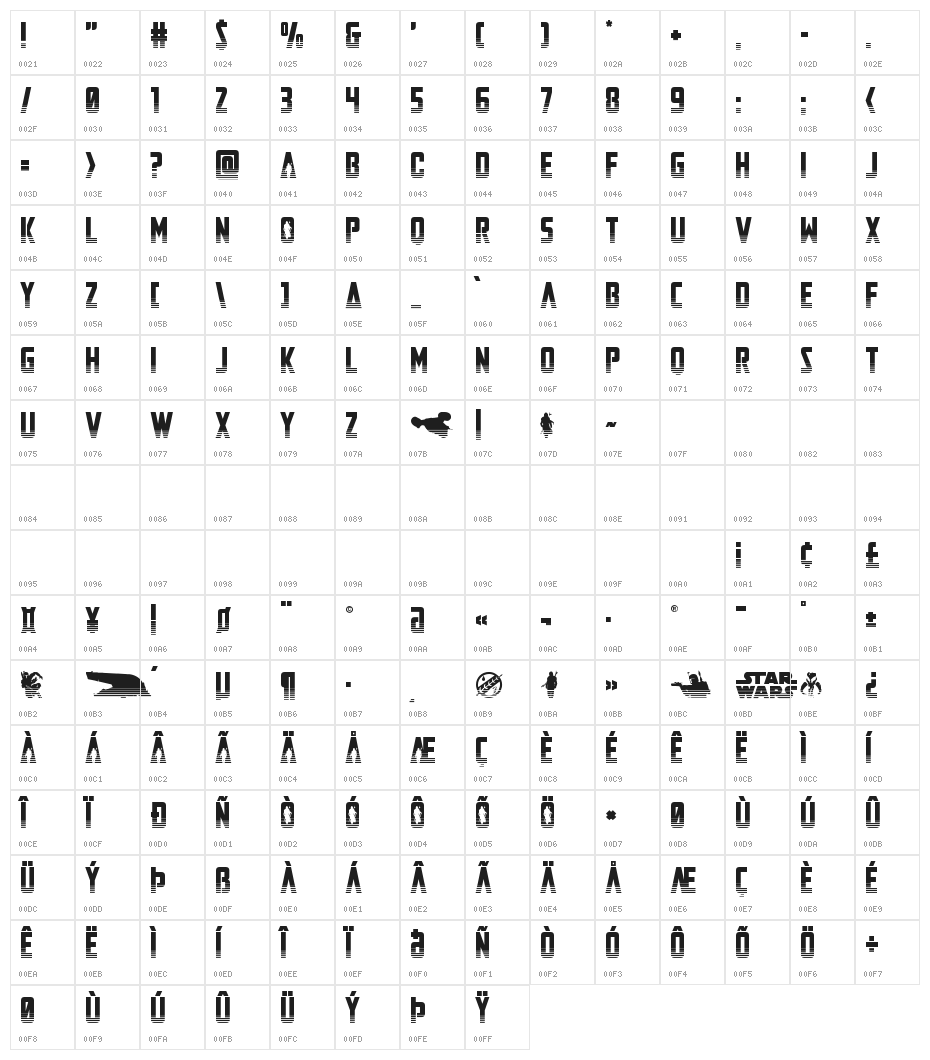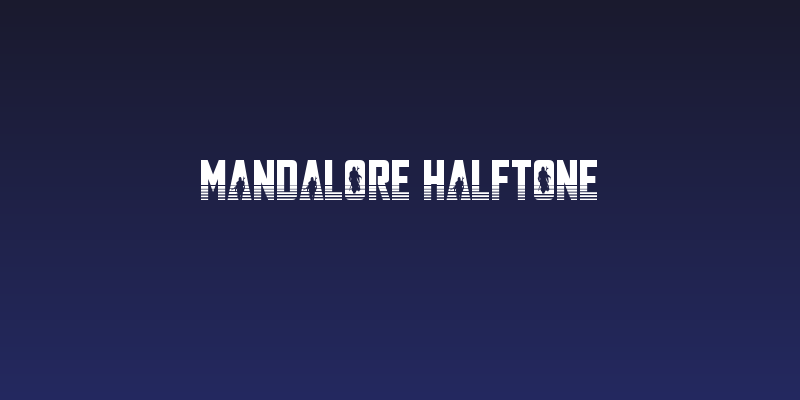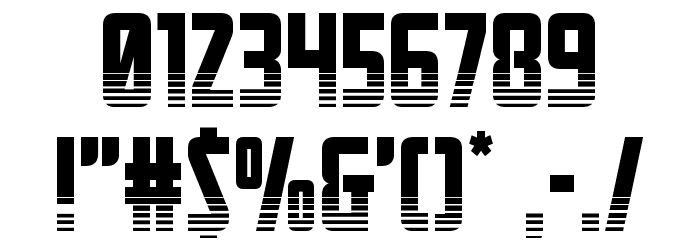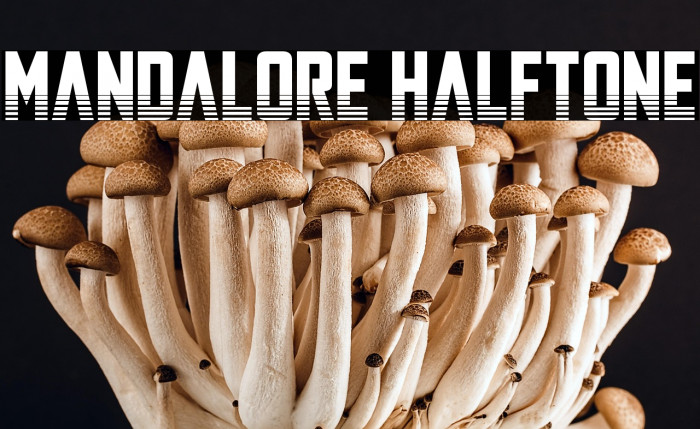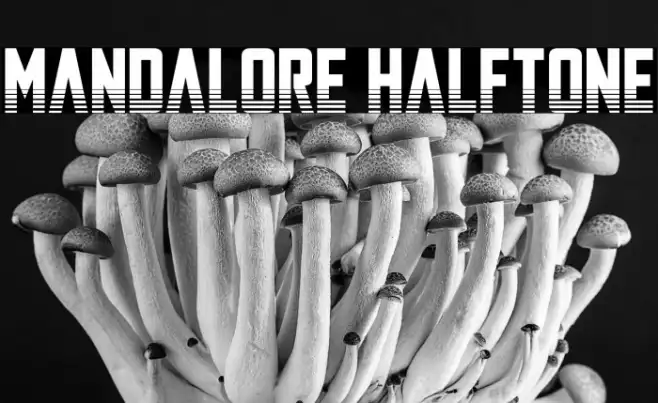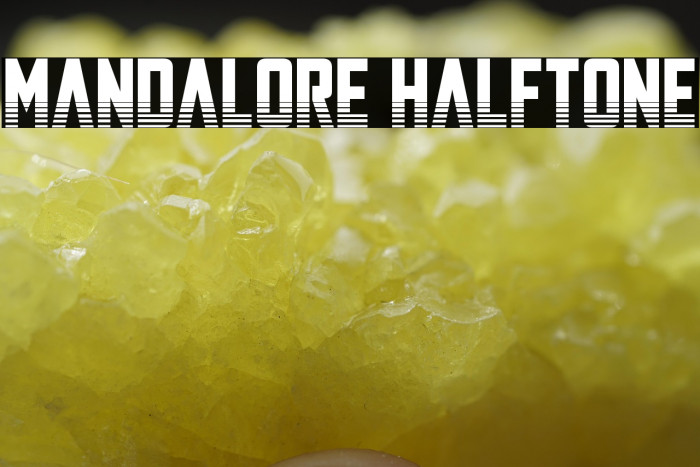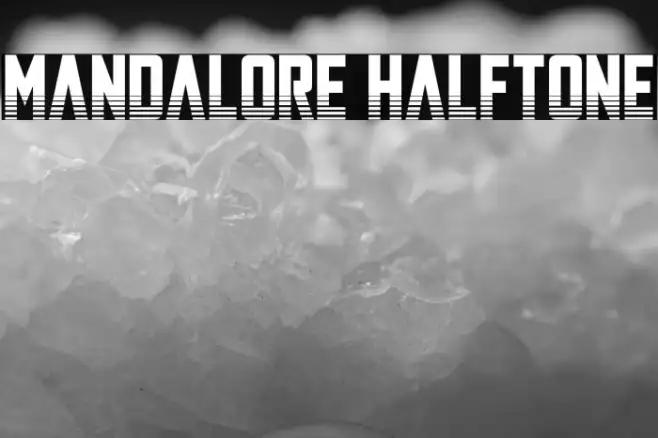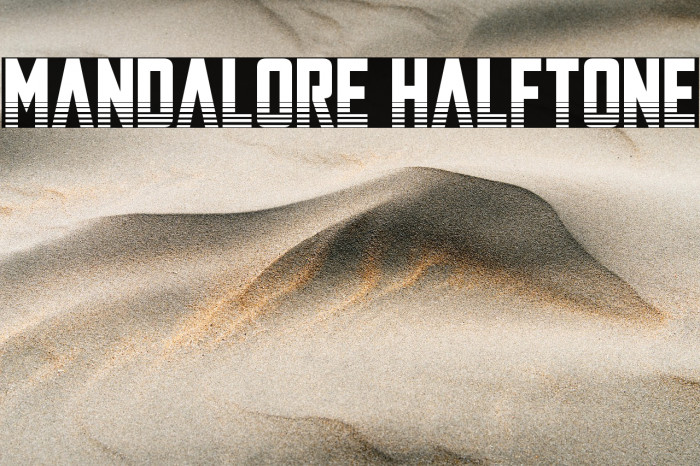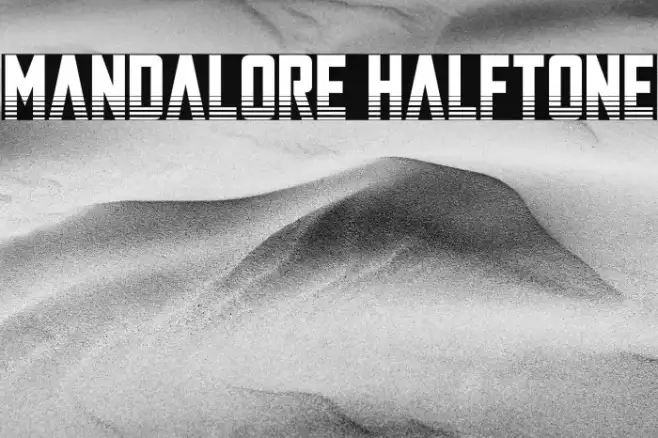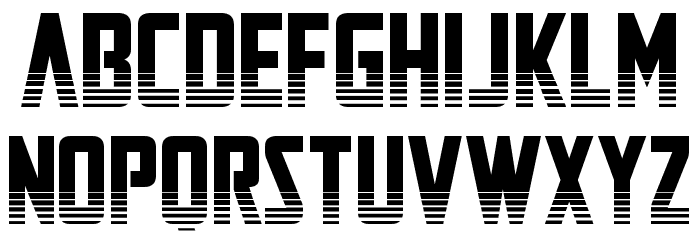
Mandalore Halftone Font
Mandalore Halftone Description
This font features a bold, futuristic design with a halftone effect that creates a sense of movement and depth. Each character is constructed with solid black upper sections that transition into horizontal lines, giving it a unique, dynamic appearance. The font is highly stylized, with a strong geometric influence, making it ideal for projects that require a modern and edgy look. The inclusion of a silhouette figure within some letters adds an intriguing visual element that enhances its distinctiveness. This font is perfect for creating eye-catching headlines, posters, and branding materials that demand attention.
| Proposed Projects | Ideal for sci-fi themed posters, modern branding, video game titles, and dynamic advertising campaigns. |